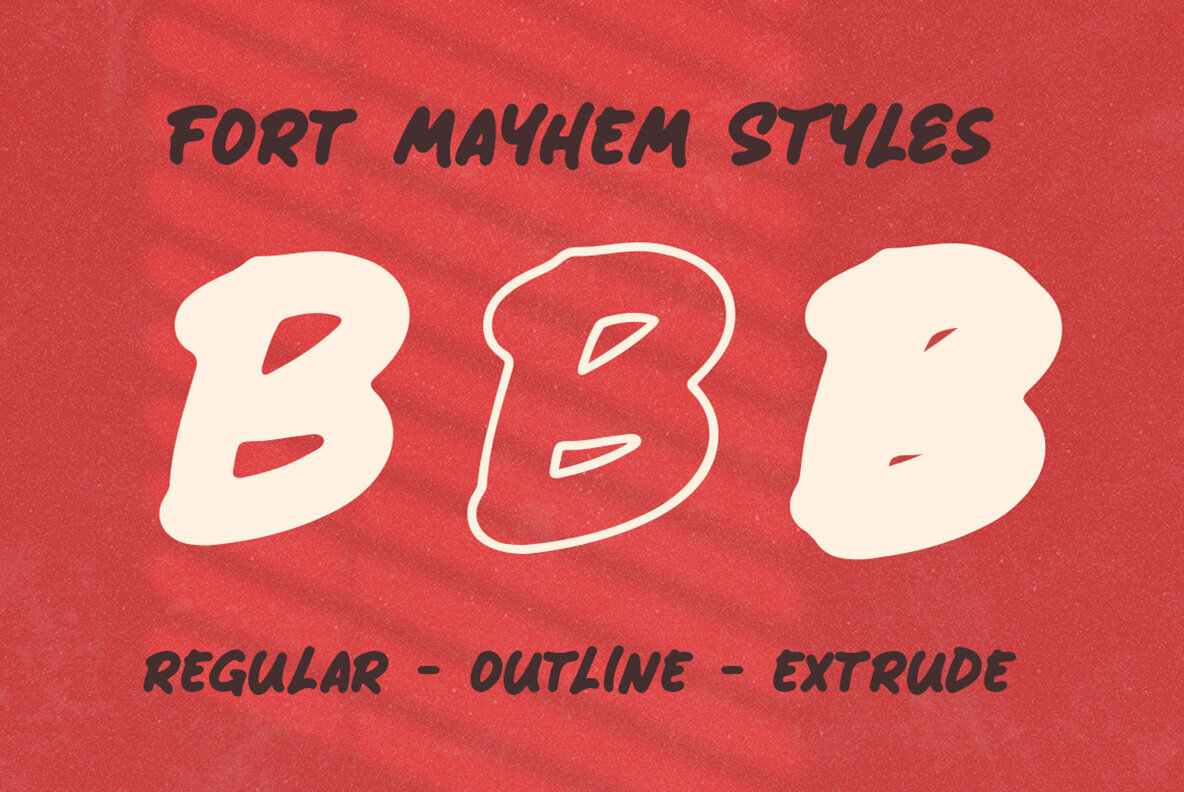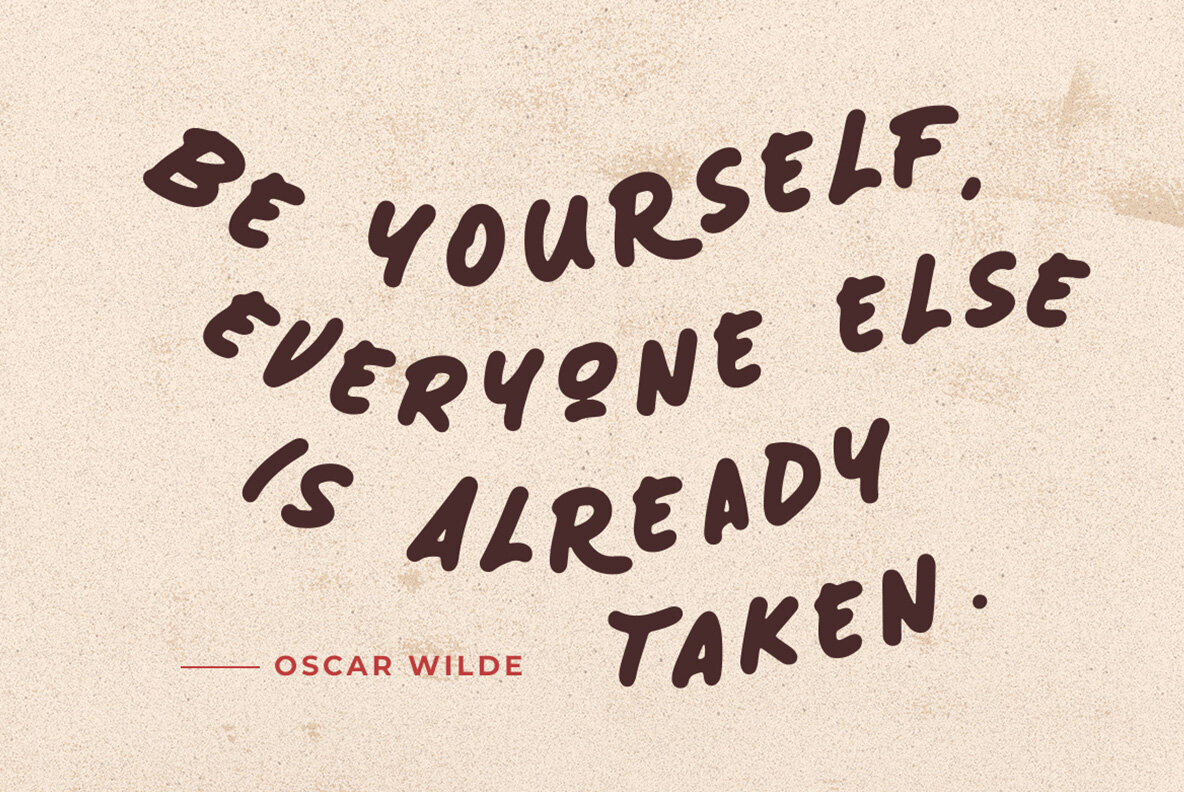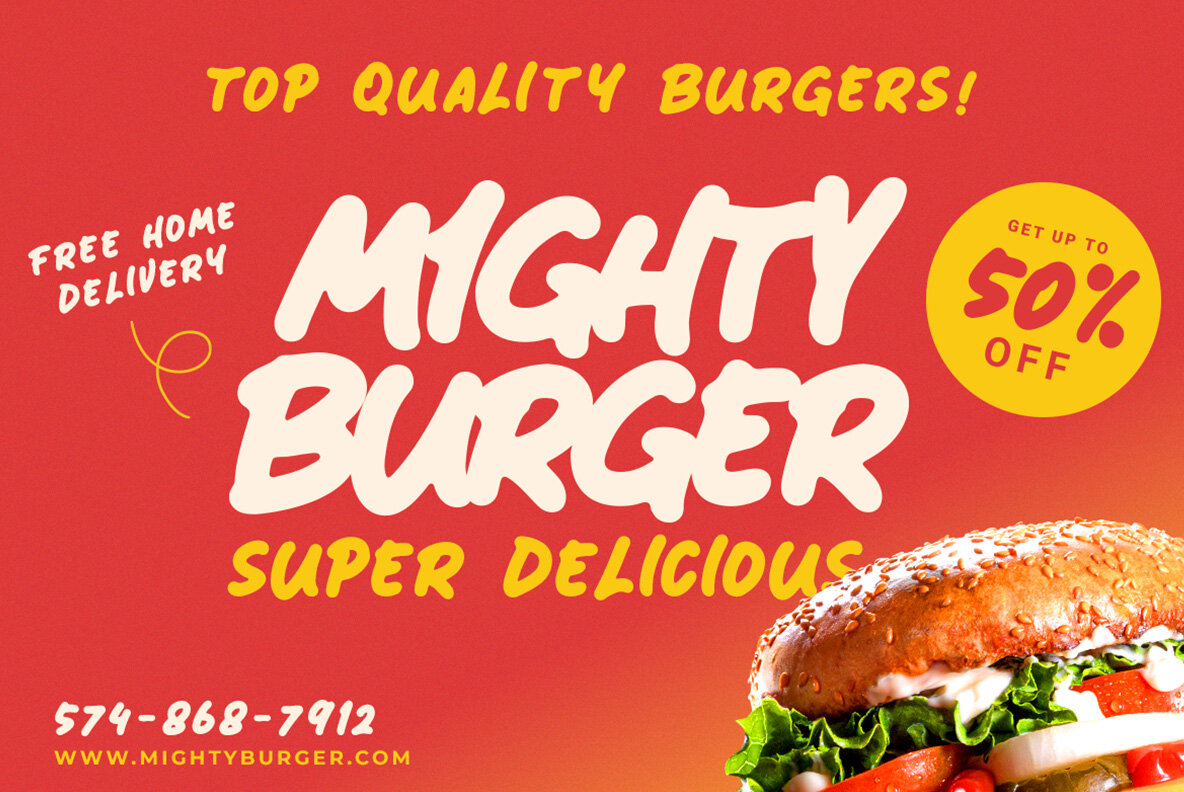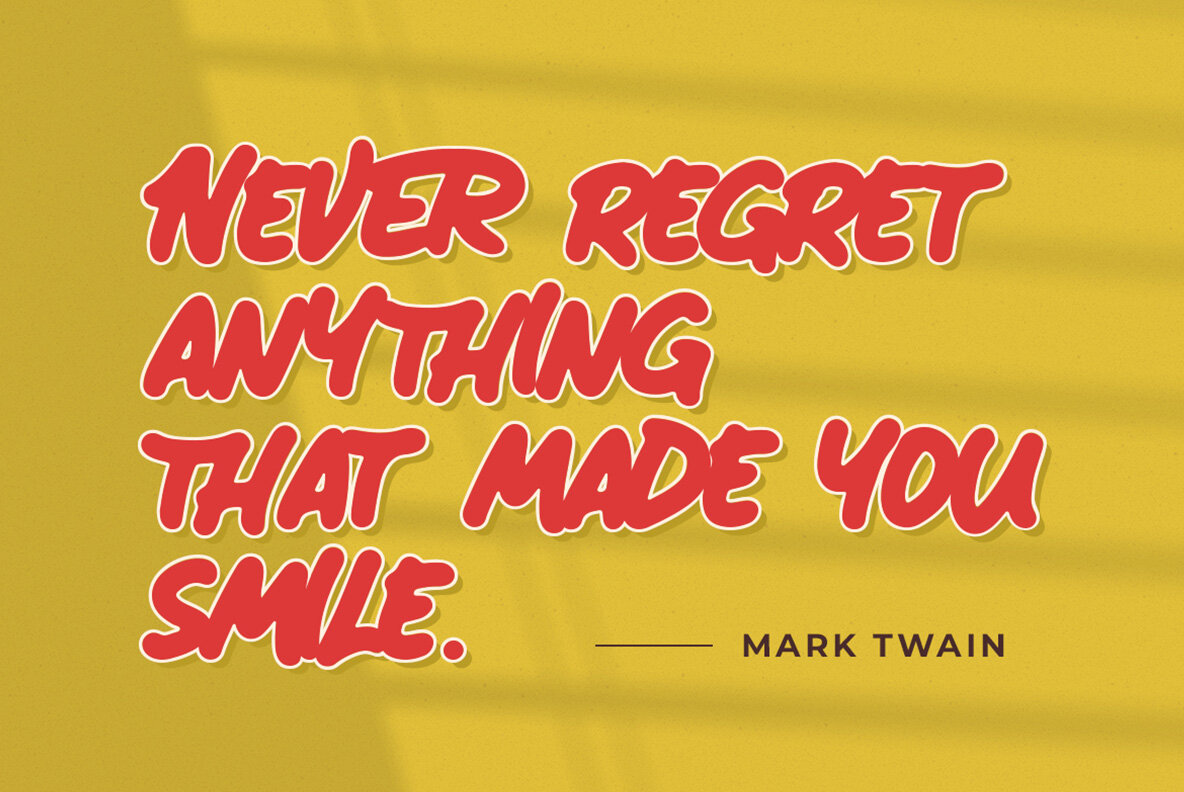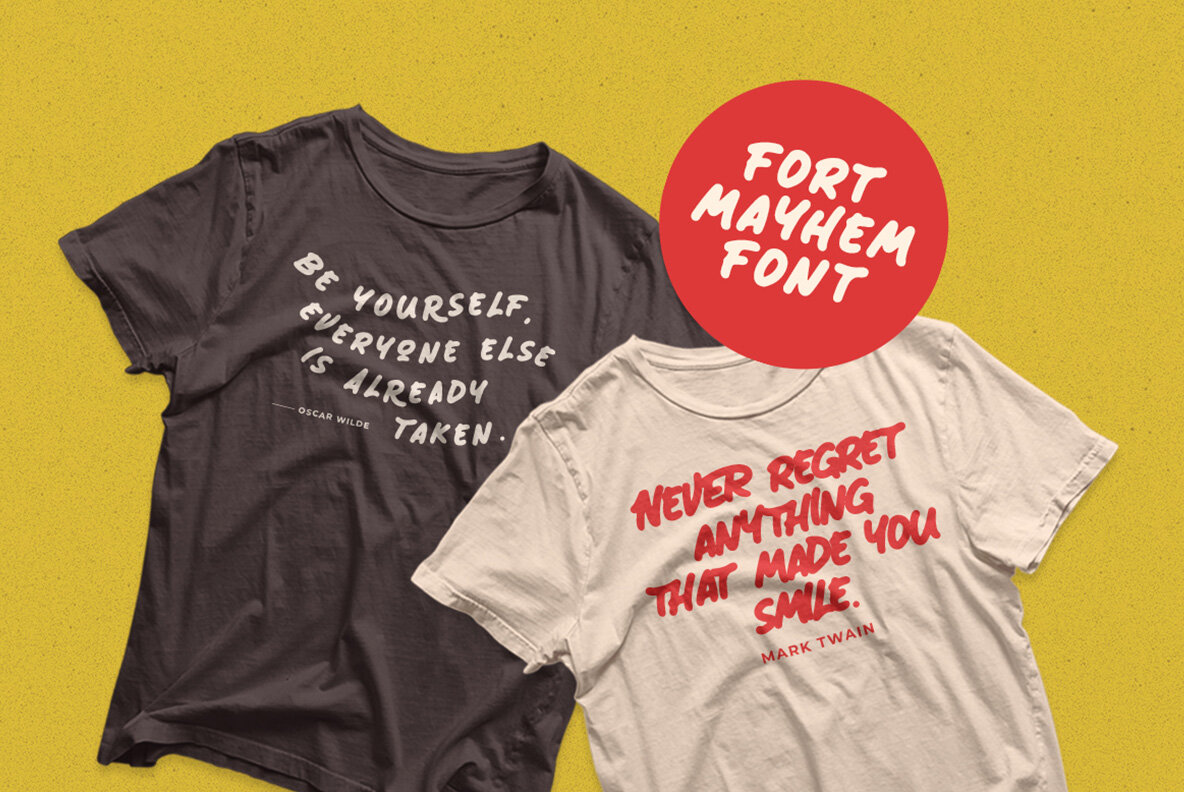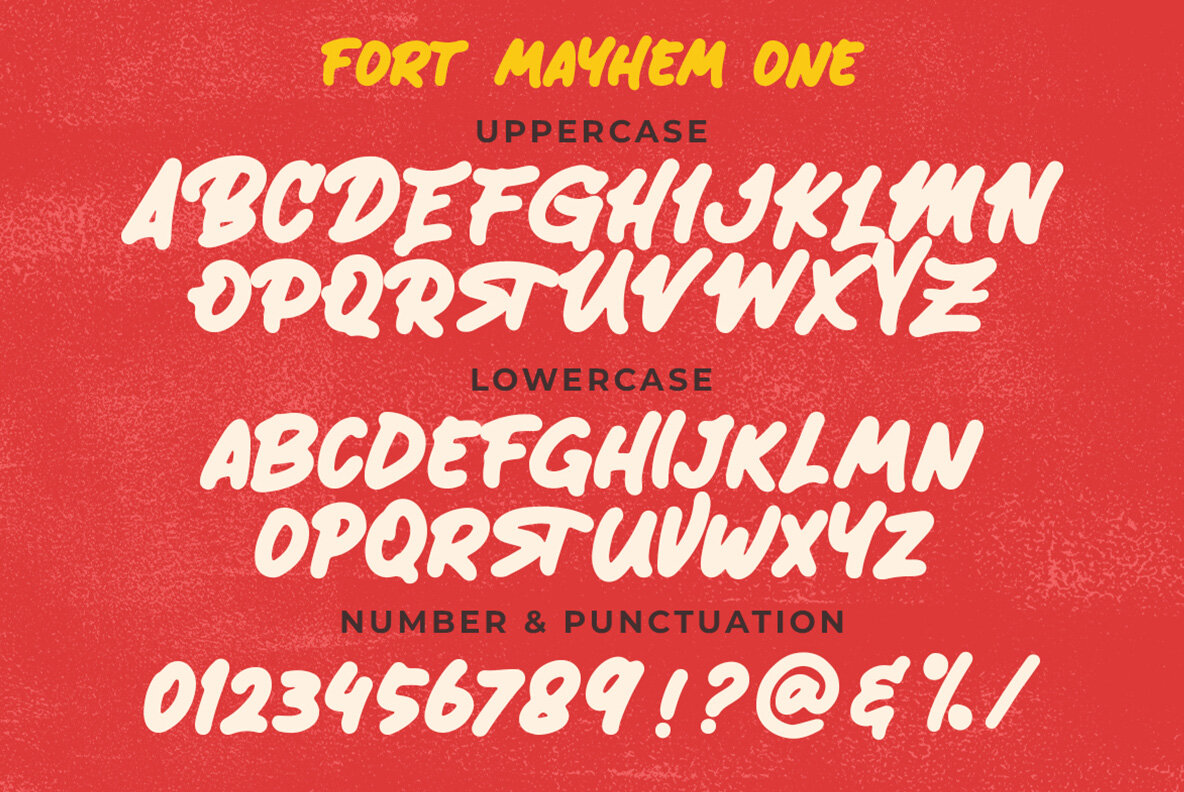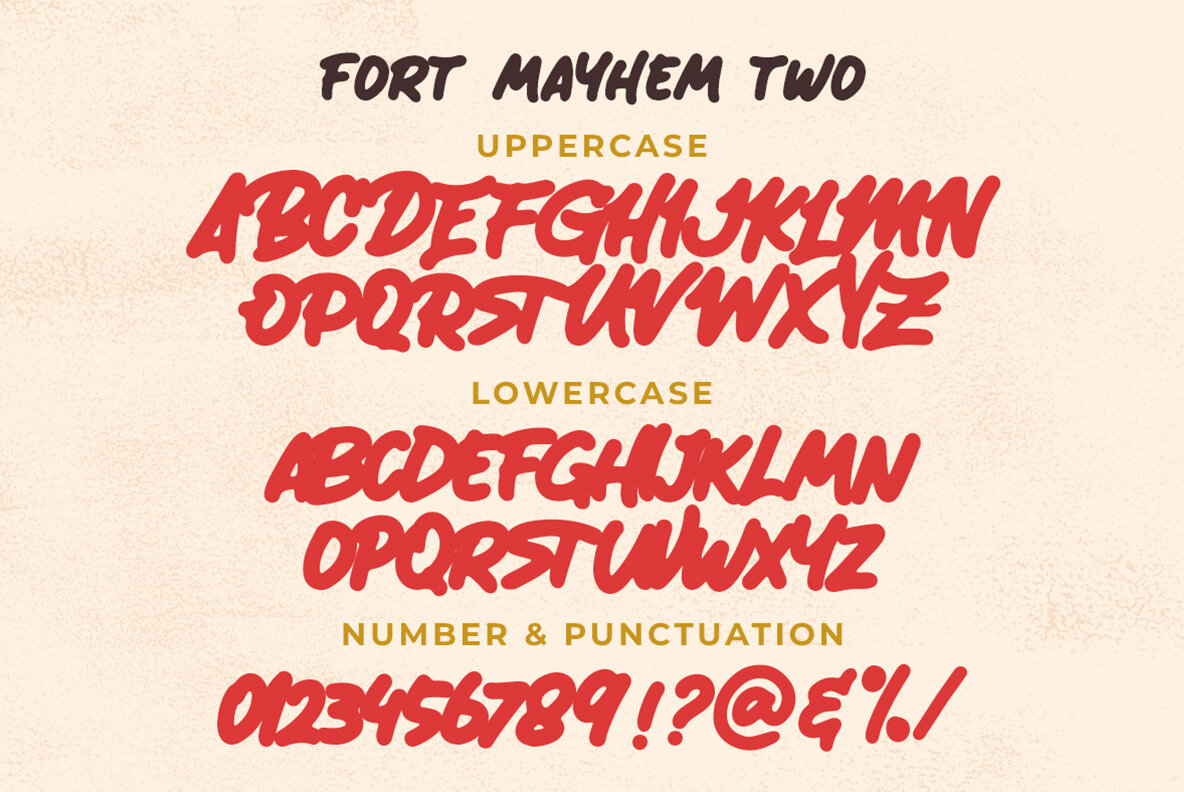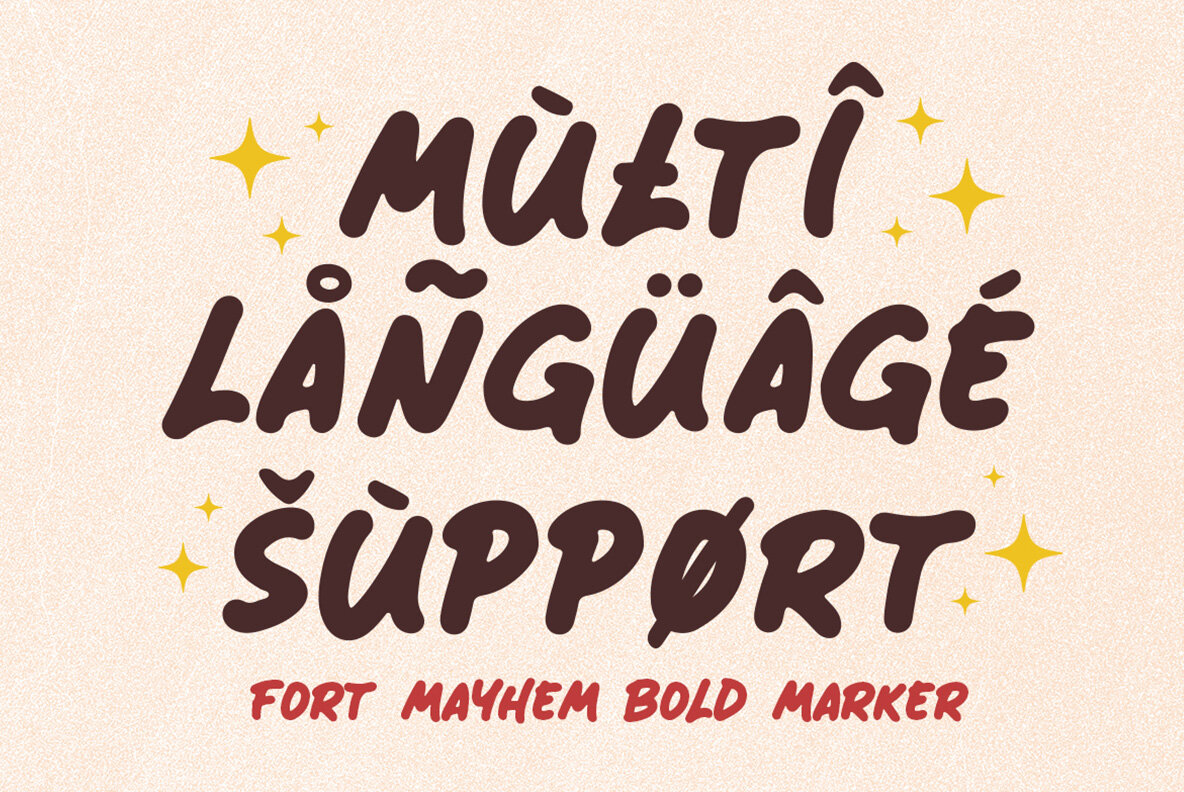
Fort Mayhem Font
Fort Mayhem exudes an artisanal charm with its hand-drawn appeal, setting a bold tone for titles and headlines. Crafted with purpose to enhance logos, signage, and various formal applications, this font is an asset in creating branding that demands attention. Features: Designed for use in magazines, books, and invitations, Fort Mayhem is a versatile font suitable for greeting cards, packaging, and advertising purposes. Its unique strokes ensure that no matter the context, your message stands out.Fort Mayhem: Distinctive Display Marker Font